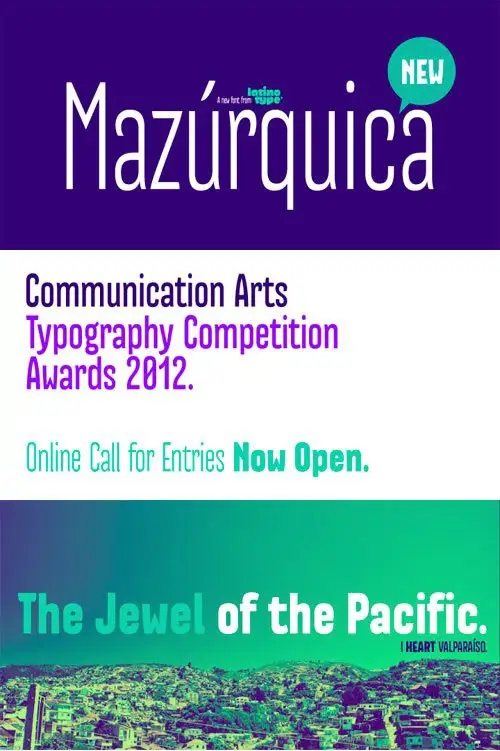
Mazurquica Font Family
Mazurquica is an extra condensed sans-serif typeface, ideal for titles and headlines looking for impact and style. Its design in three weights: Ligera (light), Media (medium) and Pesada (heavy) allows it to be used in many applications. Its capitals contain a set of ligatures that gives the upper-case text a particular look. Mazurquica is an excellent choice for magazines, books, posters, brochures, flyers, etc.